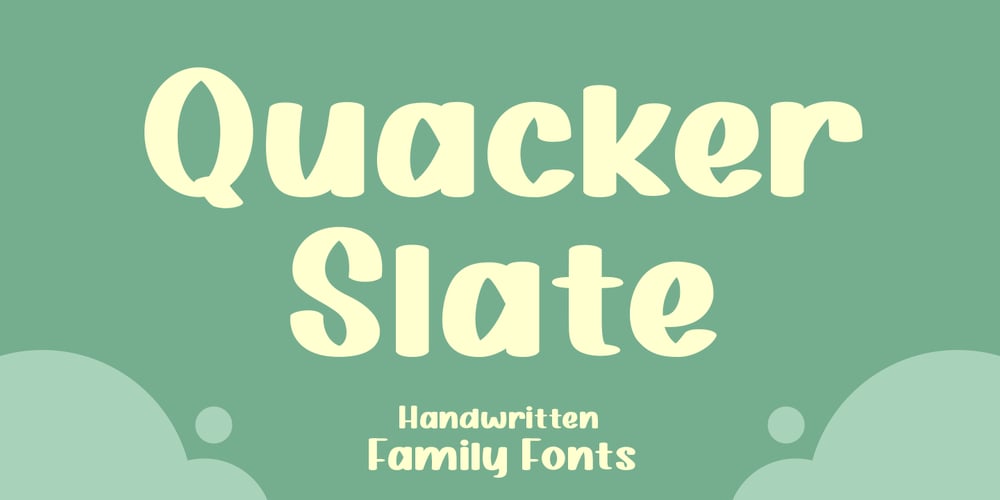
Quacker Slate
Quacker Slate font
Quacker Slate Font Family was designed by Stefie Justprince and published by Crumphand. Quacker Slate contains 8 styles and family package options. Quacker Slate is a hand written family font with perfect reading for your graphic, good kerning.this font good for your brand/company, fashion content, slogan logo, instagram content.What’s Included In Glyph ? Uppercase Lowercase Numerals Symbols European Multilingual